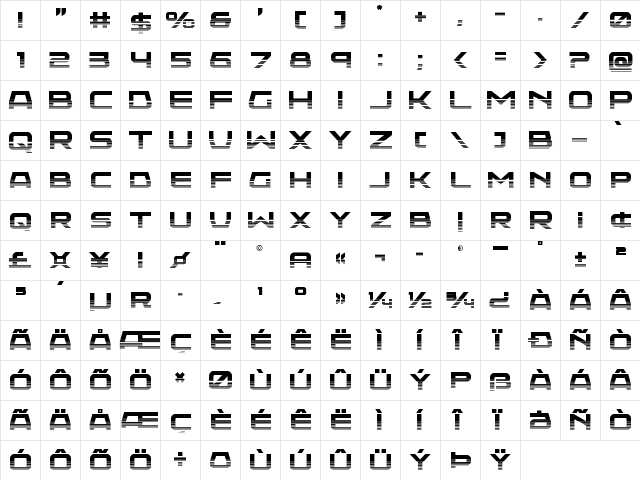
Neutron Dance Halftone Regular
Design Context for Neutron Dance Halftone Typeface
Neutron Dance Halftone is a composed and adaptable typeface that performs quietly and consistently across a wide range of design contexts.